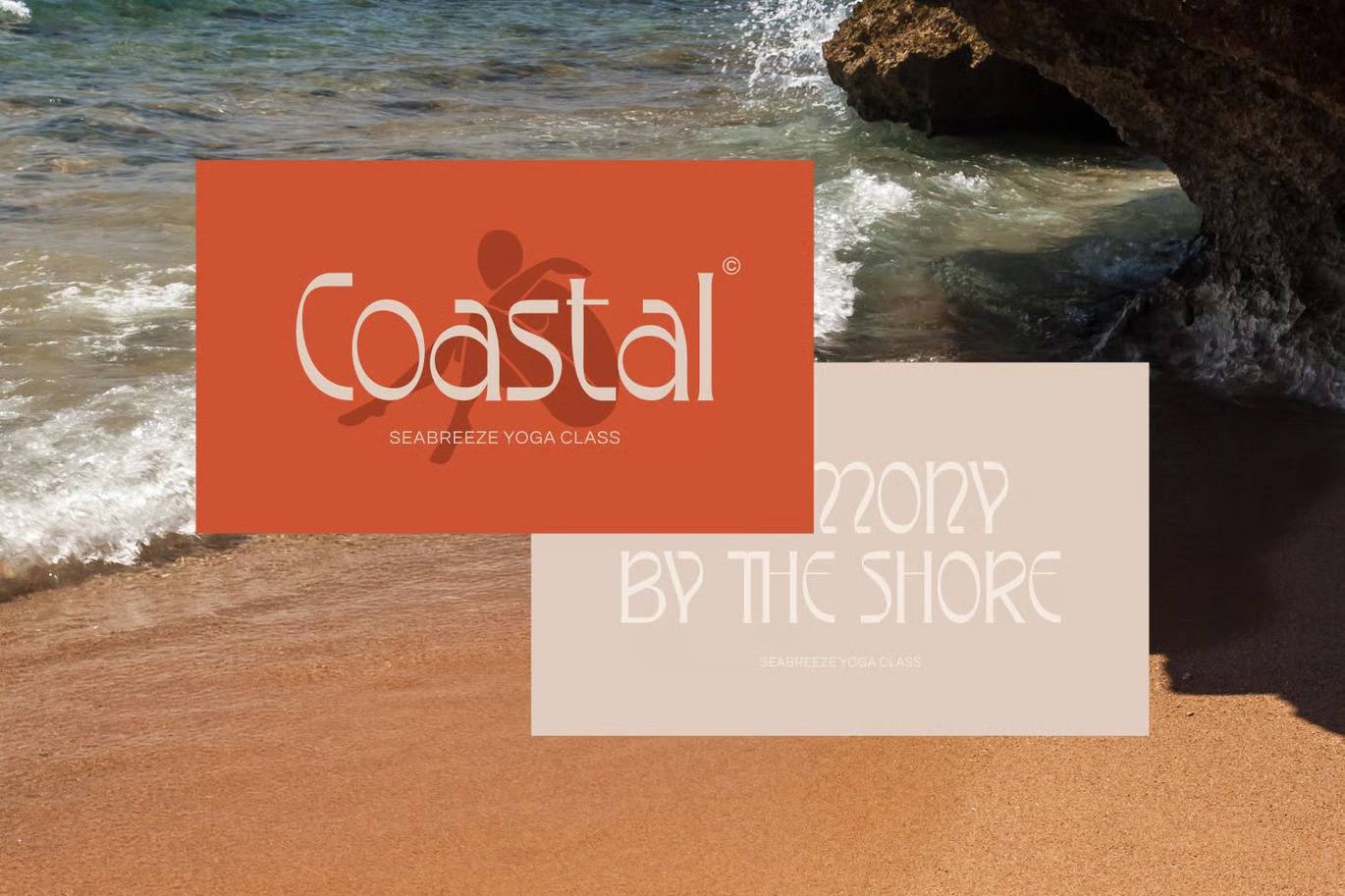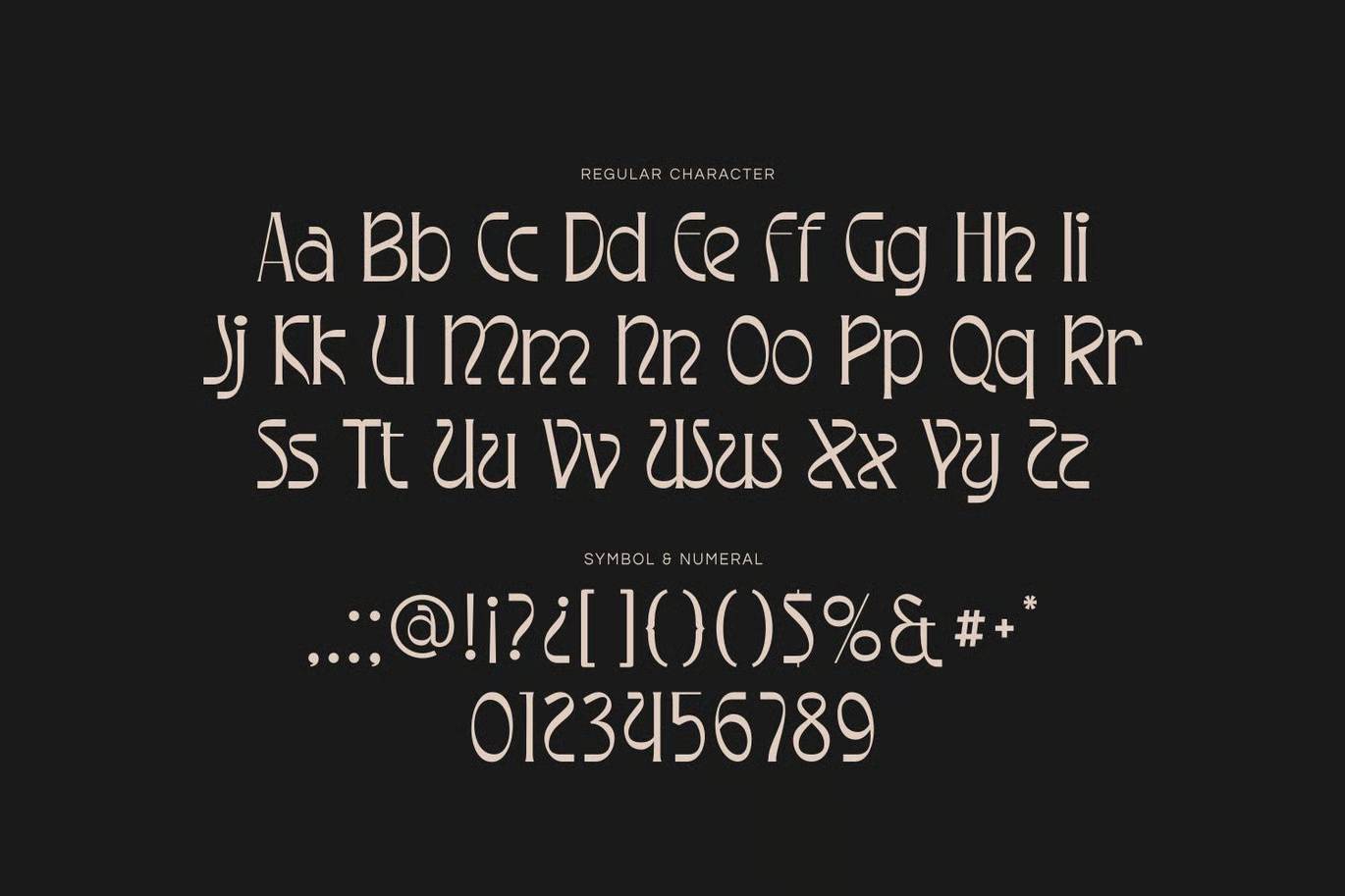
Exotisal Display Font
Exotisal is a modern display font that merges artistic curves with geometric precision, offering a distinctive and elegant look. Its gracefully curved terminals and imaginative ligatures strike a balance between organic beauty and refined structure. Inspired by art deco and coastal minimalism, Exotisal exudes a sense of luxurious calm. Ideal for branding luxury products, editorial spreads, upscale menus, boutique packaging, spa identities, and artistic titles, it’s a font that speaks of serenity and bold sophistication—perfect for brands seeking elegance with individuality.
Exotisal – Modern Serif Display Font